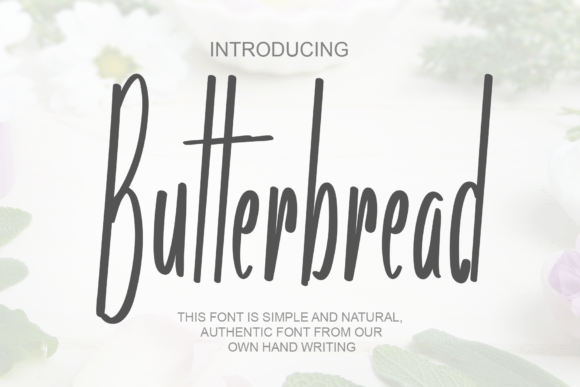
Have you ever been brainstorming a new project, and then – BAM! – the perfect idea strikes, and you just can’t wait to bring it to life? That’s exactly what happened to me when I first laid eyes on the Butterbread Font. Its playful, handwritten charm instantly sparked a million creative possibilities in my mind.
Butterbread Font is more than just a pretty face – it’s a game-changer for designers. With its simplicity and versatility, it effortlessly elevates any design to the next level. Whether you’re working on a branding project, creating a social media campaign, or crafting a beautiful poster, this font is the perfect addition to take your ideas to new heights.
So, what makes the Butterbread Font so valuable to designers? Its ability to add a personal touch to any project, making it truly unique and engaging. By incorporating this font into your designs, you’ll be able to create something truly special that stands out from the crowd.
Butterbread Font Key Features
- Unique Characteristics: Butterbread Font features a distinctive blend of modern and vintage elements, with a unique combination of rounded and sharp edges.
Butterbread Font Review
I recently had the chance to work with the Butterbread Font and here’s my honest review:
The Butterbread Font has a unique, playful feel that’s perfect for designs that need a touch of whimsy. I particularly like the way the font’s curves and lines seem to dance across the page. It’s also very versatile and can be used for a wide range of projects, from logos to advertisements.
- Unique and playful feel
- Versatile and suitable for various projects
- Good for creating eye-catching designs
While I appreciate the Butterbread Font’s charm, I do have a few concerns. For one, it can be a bit difficult to read in smaller sizes, which might make it less suitable for body text. Additionally, the font’s quirkiness can sometimes make it feel a bit over-the-top or busy.
- Difficult to read in smaller sizes
- May feel over-the-top or busy in certain designs
Overall, I think the Butterbread Font is a great choice for designers who want to add a bit of personality to their projects. While it may have some limitations, its unique charm and versatility make it a solid addition to any design toolkit.
The Butterbread font is ideal for creative projects, such as invitations, menus, and posters. To get the most out of it, experiment with different font sizes, colors, and combinations to create visually appealing designs. You can also use it to add a touch of whimsy and personality to your text.
Alternatives to Butterbread Font
Great Vibes is a modern script font ideal for creating elegant and sophisticated designs. It’s perfect for invitations, wedding stationery, and other high-end projects. Compared to Butterbread Font, Great Vibes has a more refined and polished feel, making it suitable for corporate and luxury brands.
Alex Brush is a beautiful script font with a touch of elegance and sophistication. It’s great for creating a romantic and whimsical atmosphere in designs, making it perfect for wedding invitations, stationery, and other feminine projects. Unlike Butterbread Font, Alex Brush has a more delicate and refined feel, making it suitable for designs that require a touch of femininity.